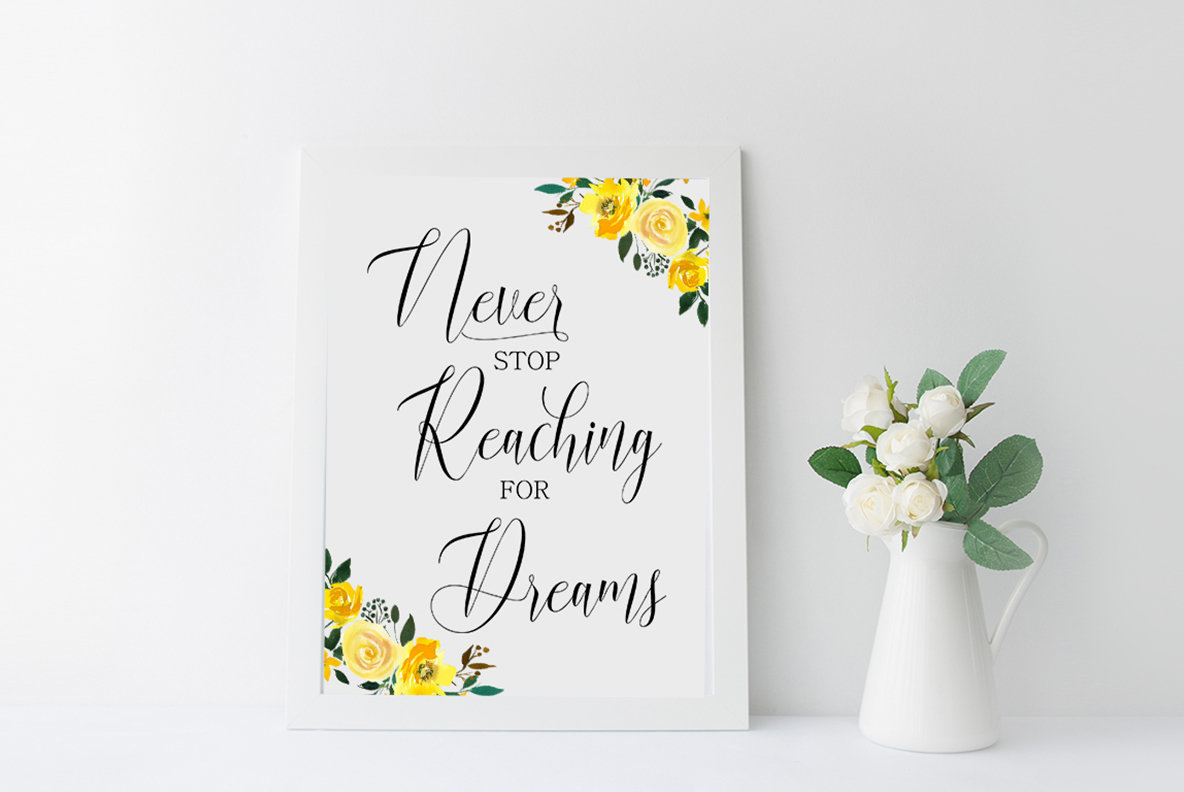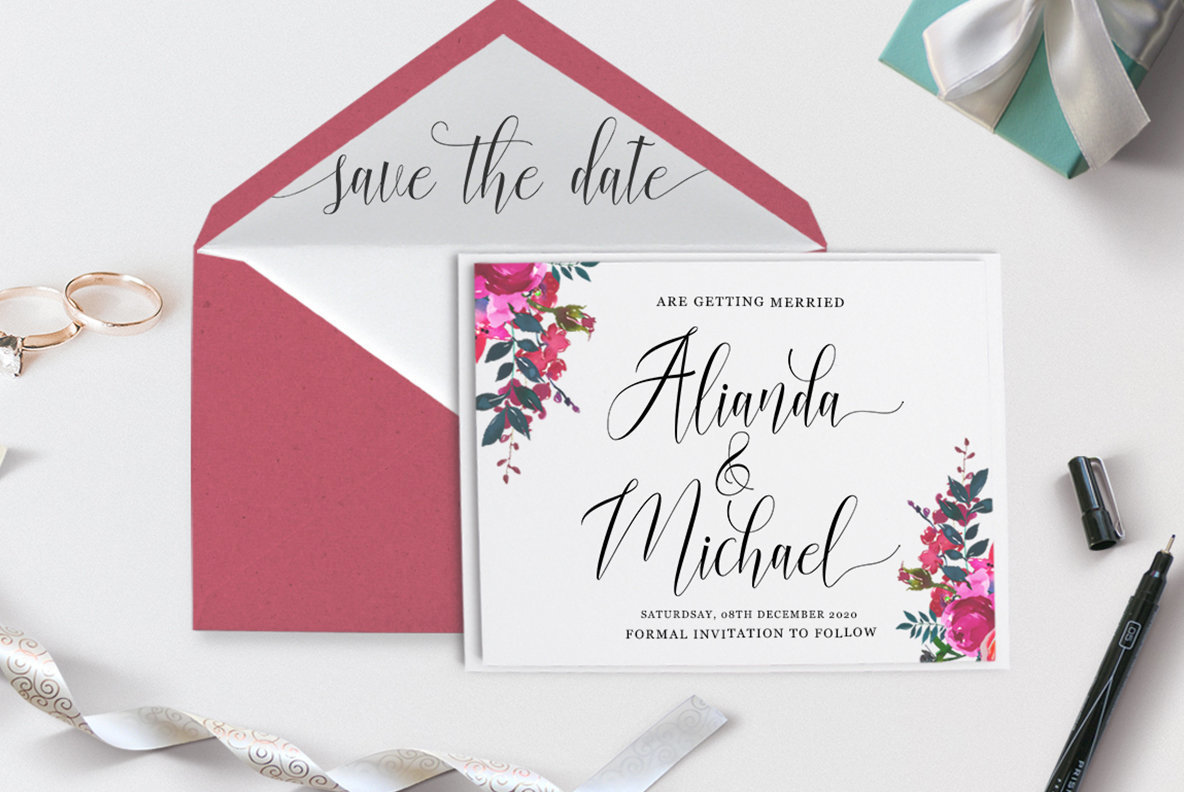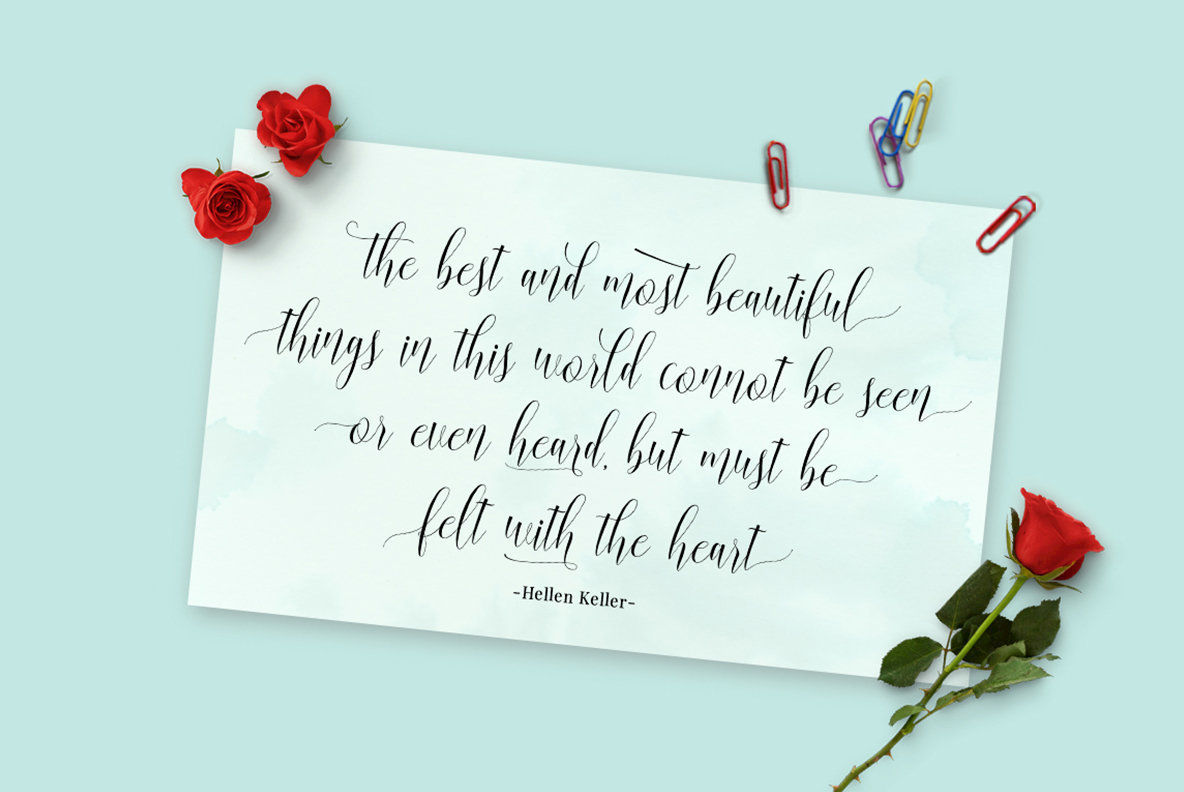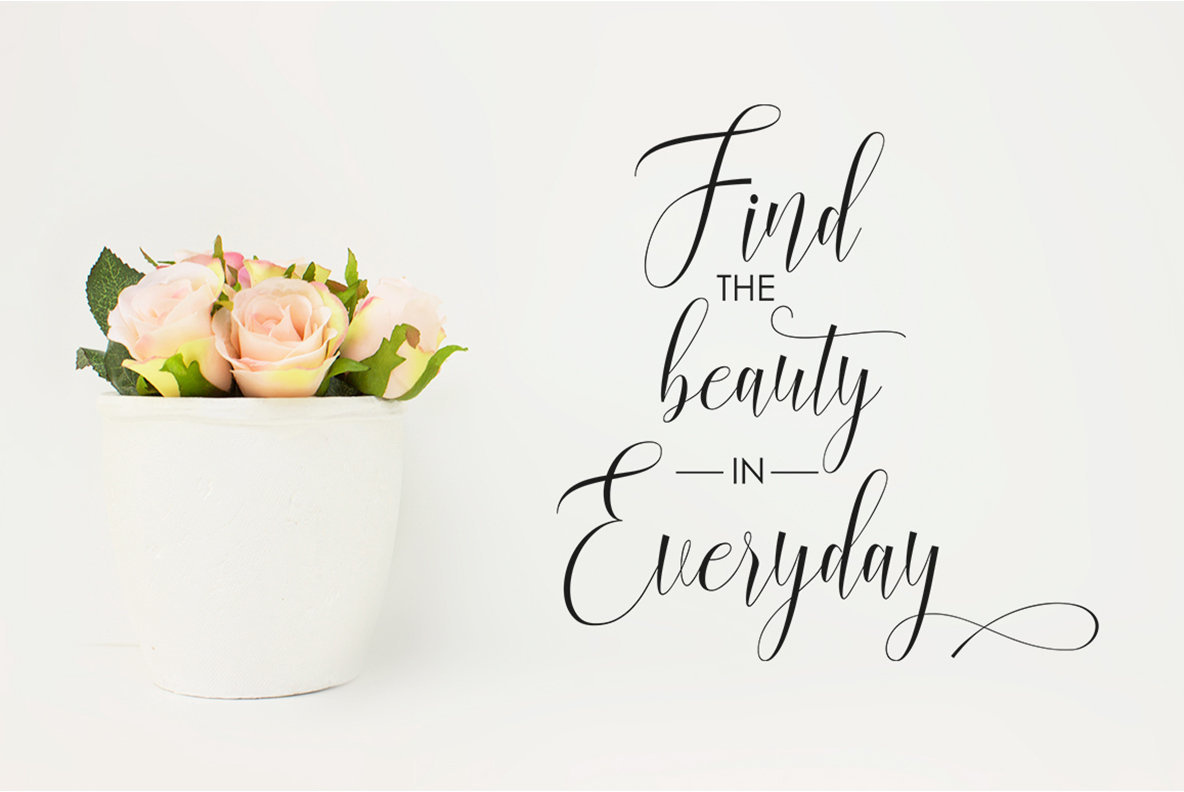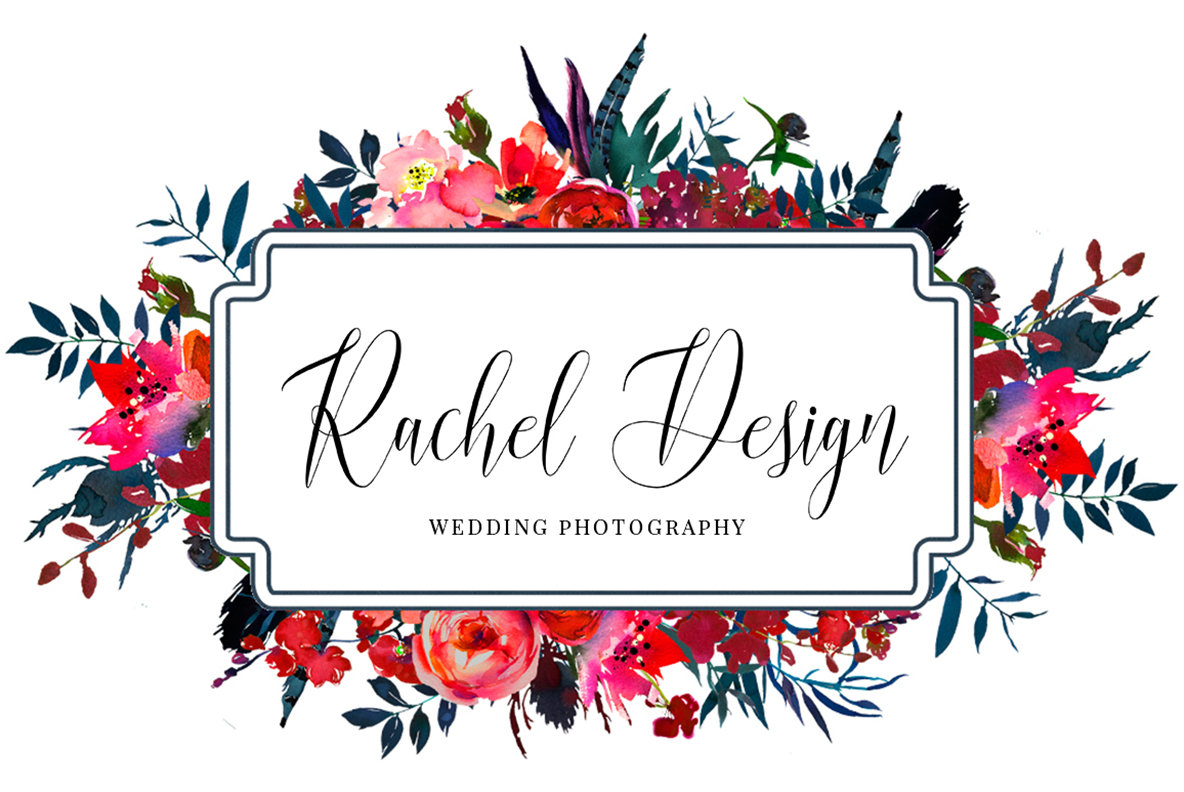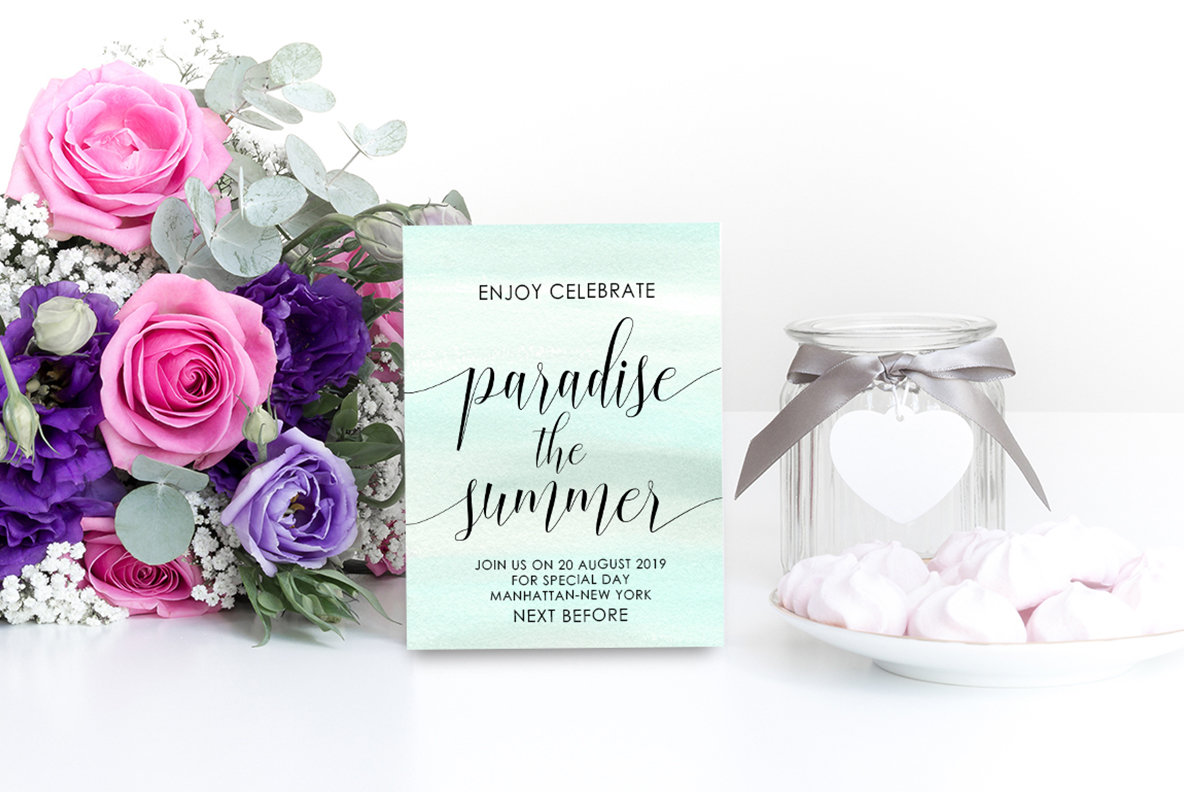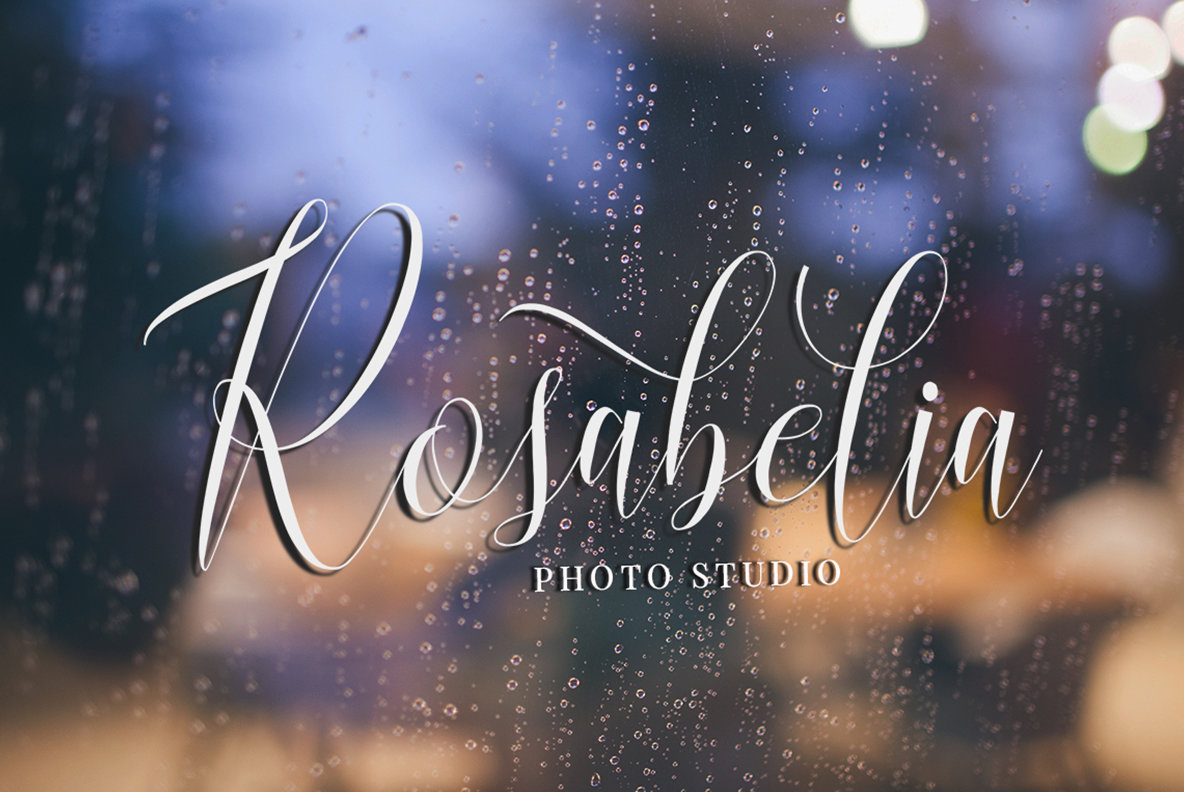
Blussafir Script Font
Blussafir Script
Blussafir Script by Great Studio is a modern calligraphy font, delivering a casual elegance that complements numerous design projects. From logos to wedding invitations, its swashes and curves add a pretty touch to each piece, making it a versatile choice for product packaging, branding, and more. Whether you're designing book covers or posters, Blussafir Script's charm lies in its adaptability and aesthetic appeal. Unlock its full potential using software that supports OpenType features to enhance your creative projects.Blussafir Script: Modern Calligraphy With Versatility